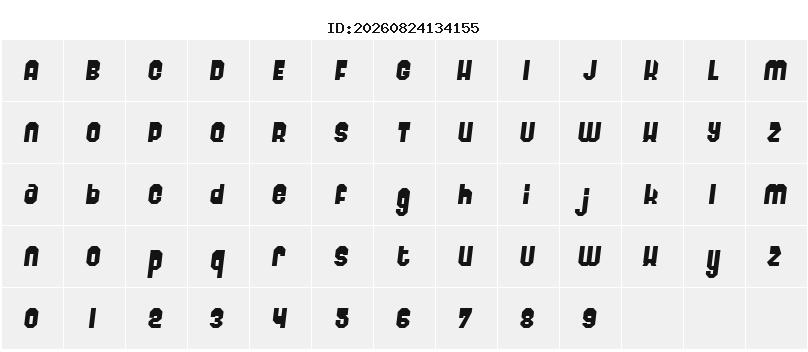
• Font Name: Sabadoo
• Full Font Name: Sabadoo
About Sabadoo.ttf
Sabadoo.ttf is a modern, elegant sans-serif font designed for ultimate readability and visual harmony. Perfect for branding, headlines, web design, and print materials.